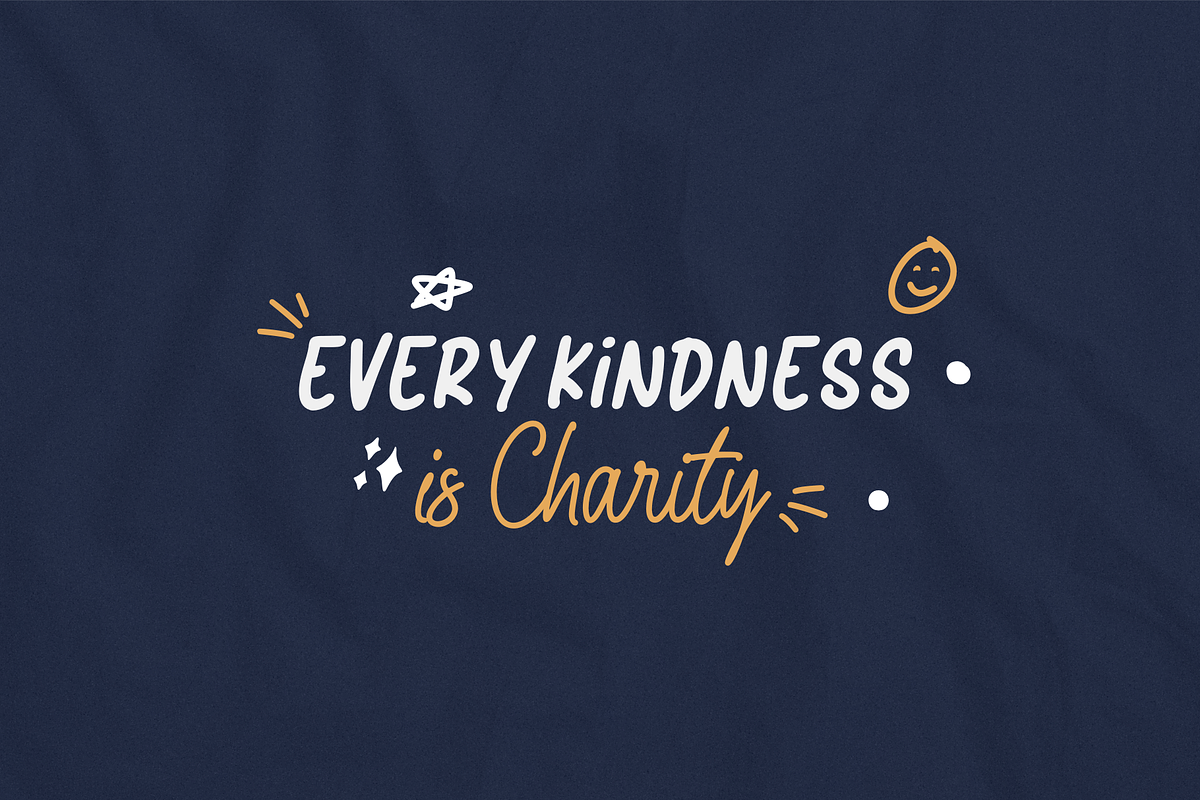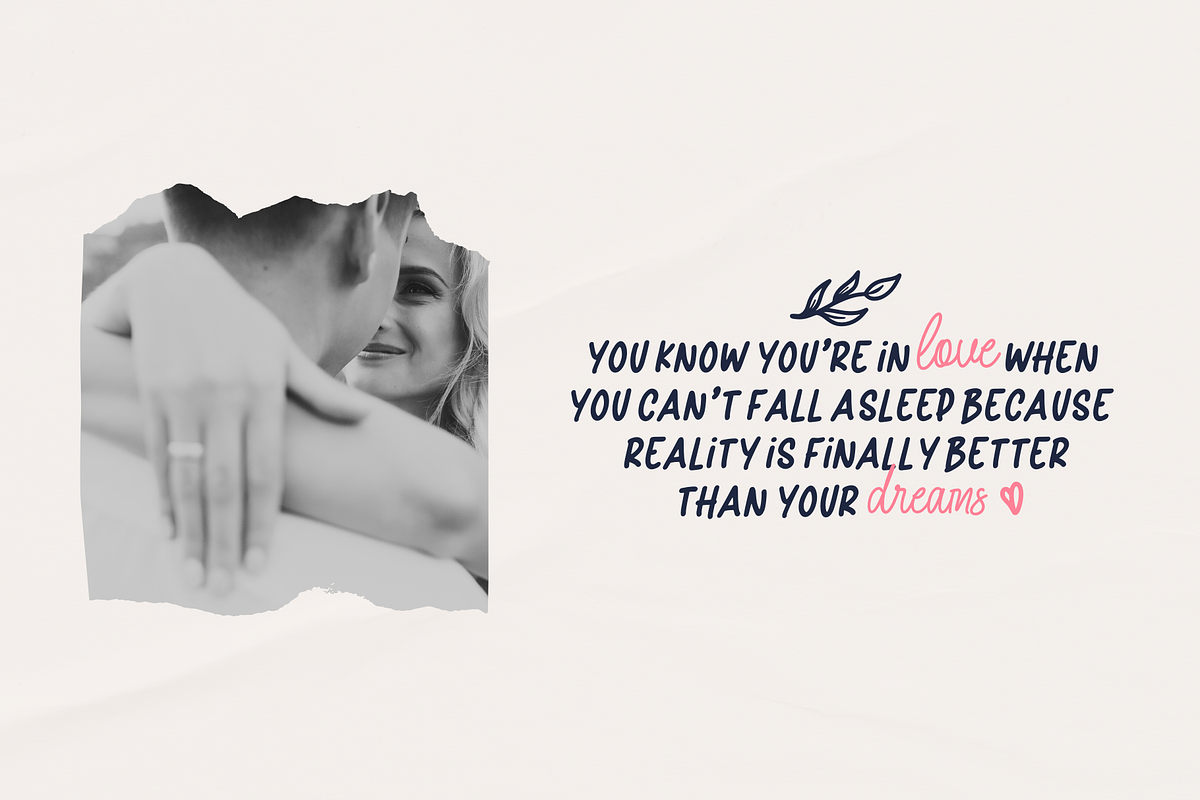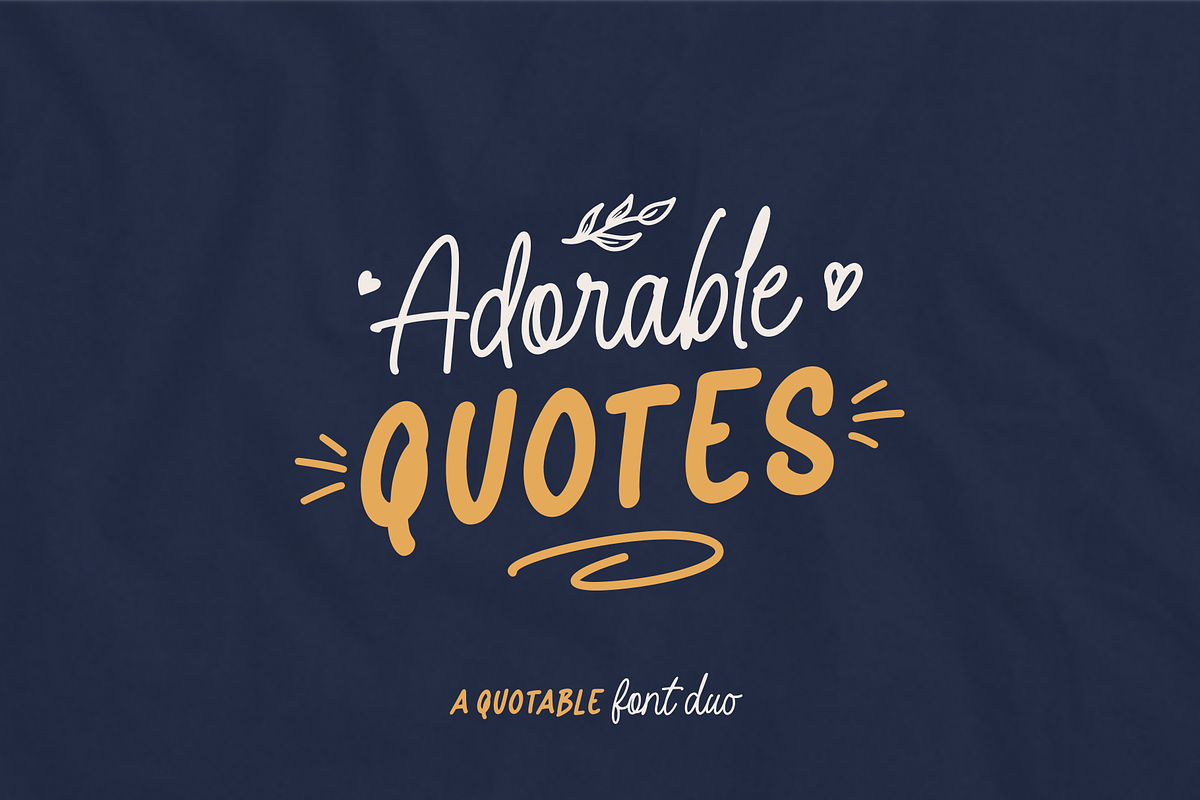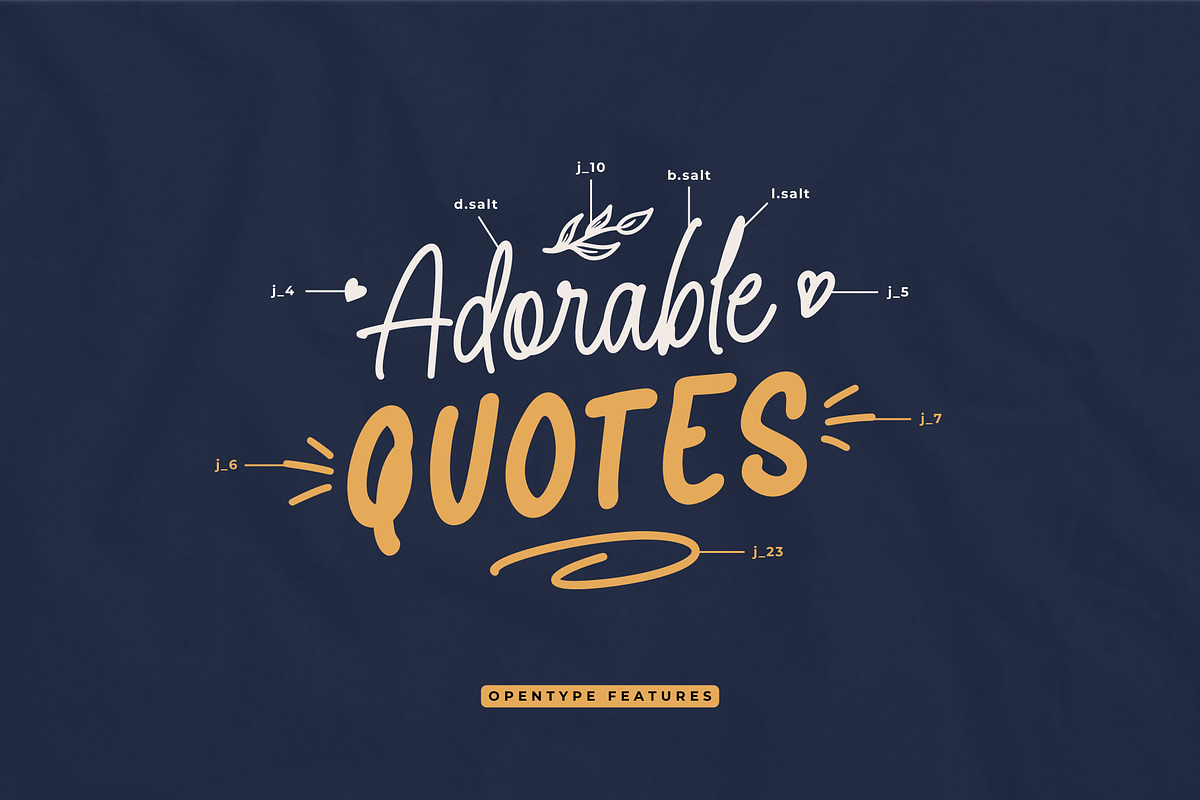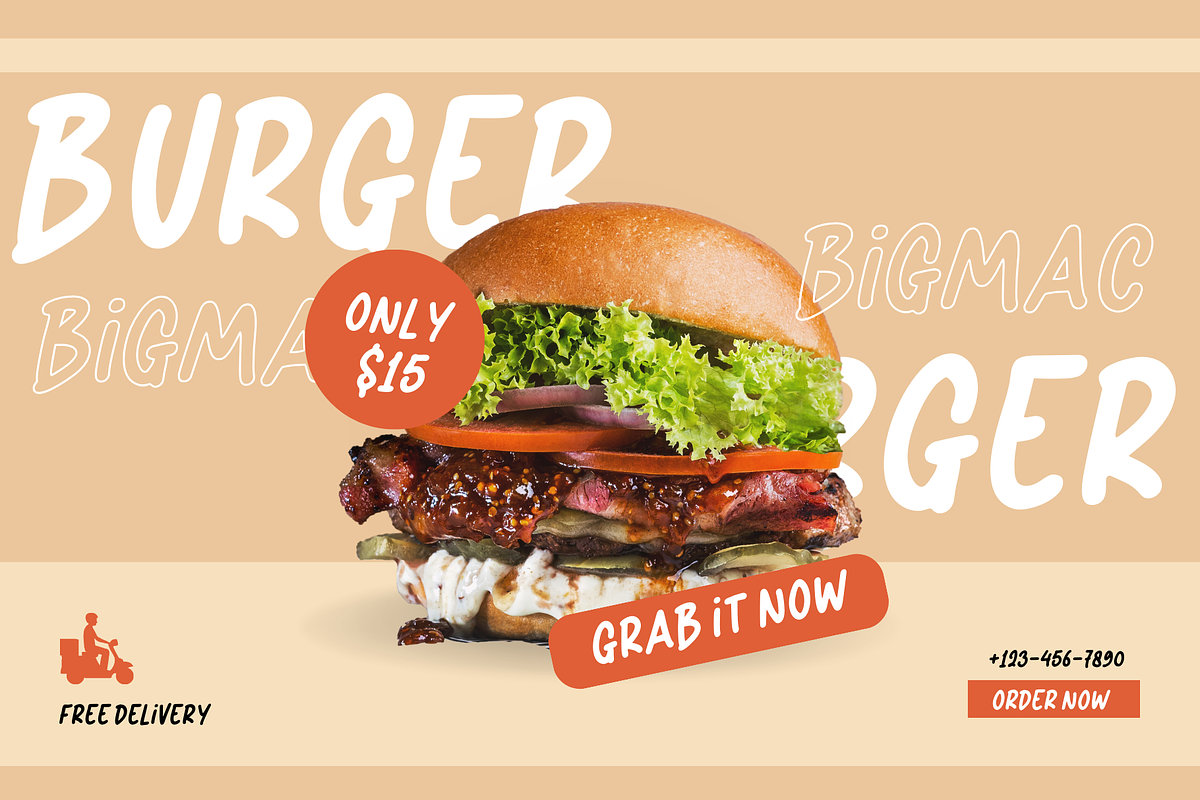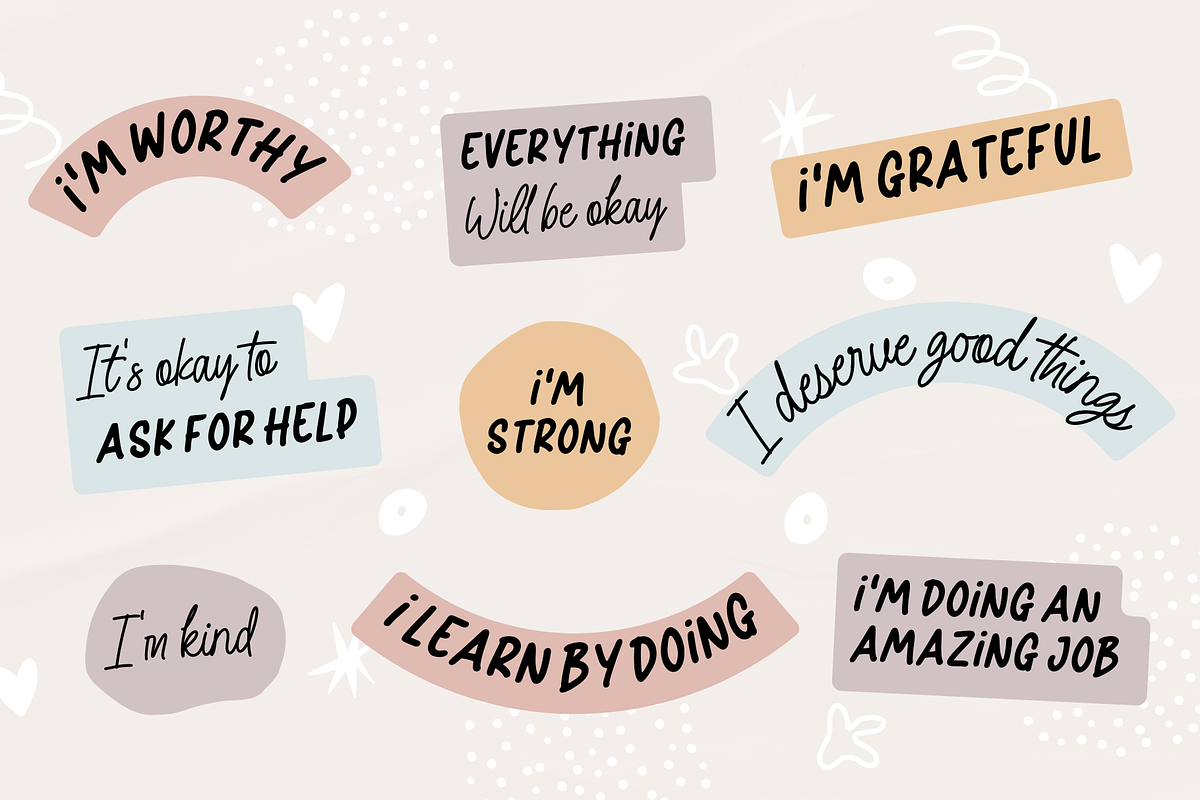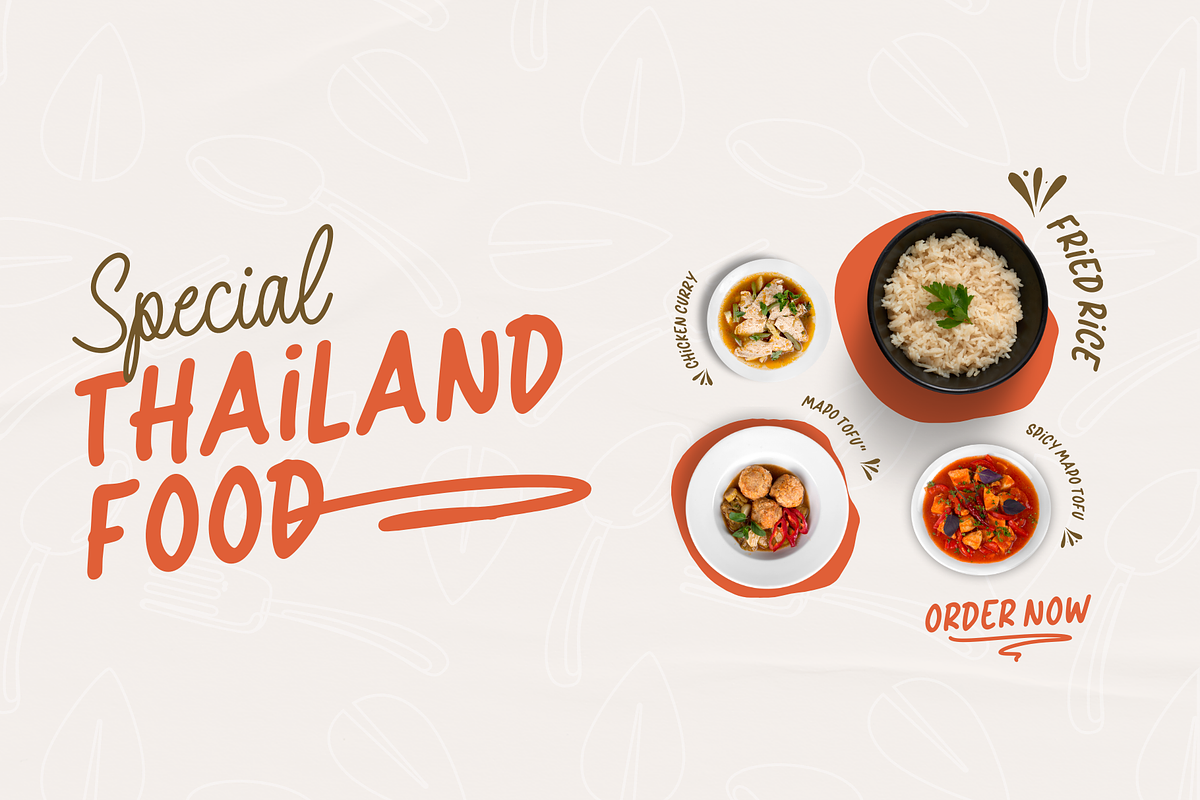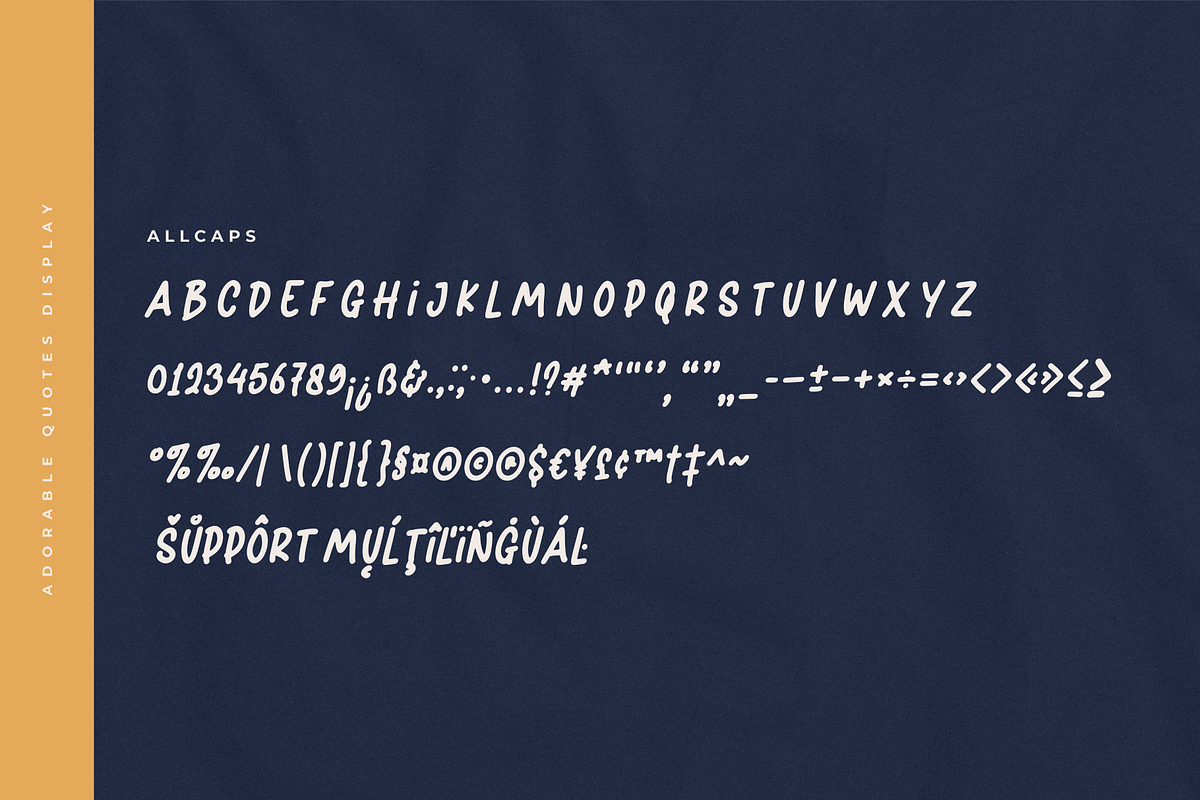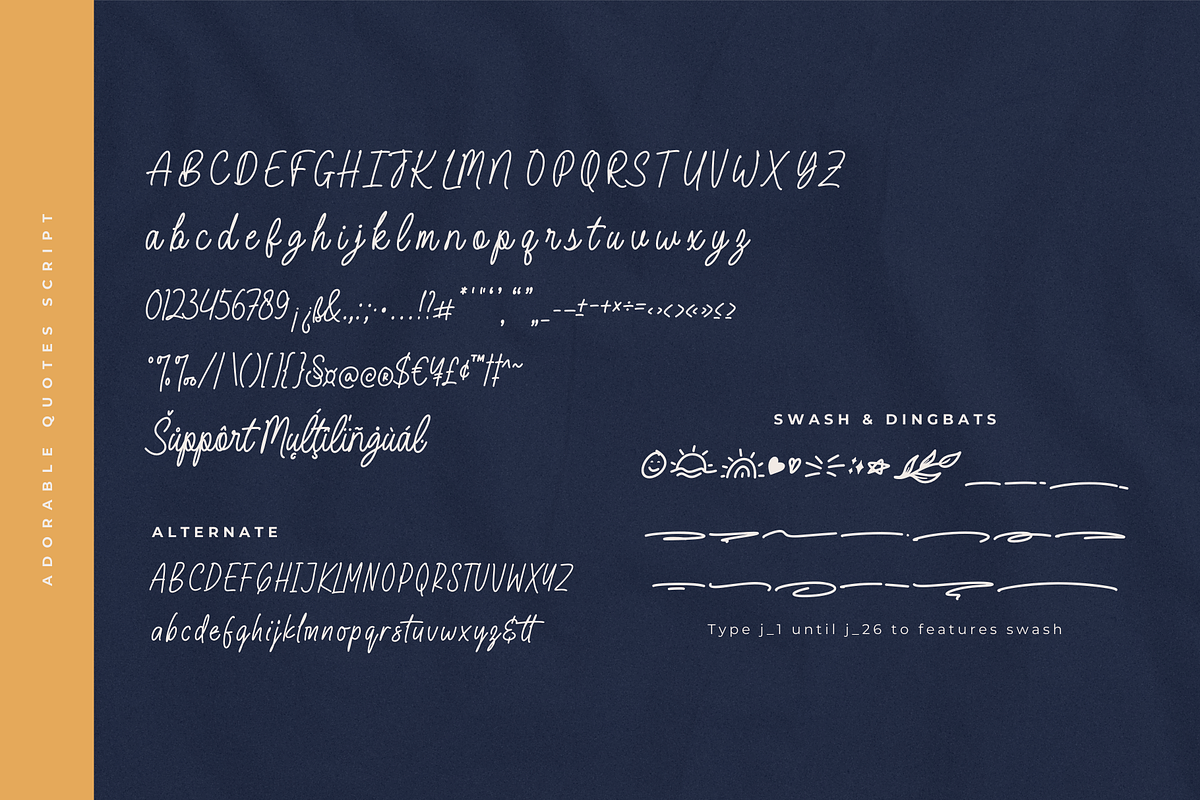
Adorable Quotes Font Duo
Introducing the Adorable Quotes Font Duo, a harmonious pairing of fonts designed to elevate your design projects to new heights. The alternate script version is a stunning addition to this versatile duo, perfect for quote design, branding, and product packaging. With its charming and artistic characteristics, this font is an invaluable asset for creative professionals and designers.
Whether you're a designer, marketer, or creative enthusiast, Adorable Quotes Font Duo empowers you to make a lasting impression and turn your ideas into captivating visual experiences. Experience the magic of this duo and bring your design visions to life.
- A set of uppercase and lowercase glyphs
- Number, symbol, and punctuation
- Alternates, ligatures, and swashes (script version)
Type j_1 until j_26 to features swash, ligatures will automatically replace the standard letter pairs whenever available, when using any OpenType capable software.